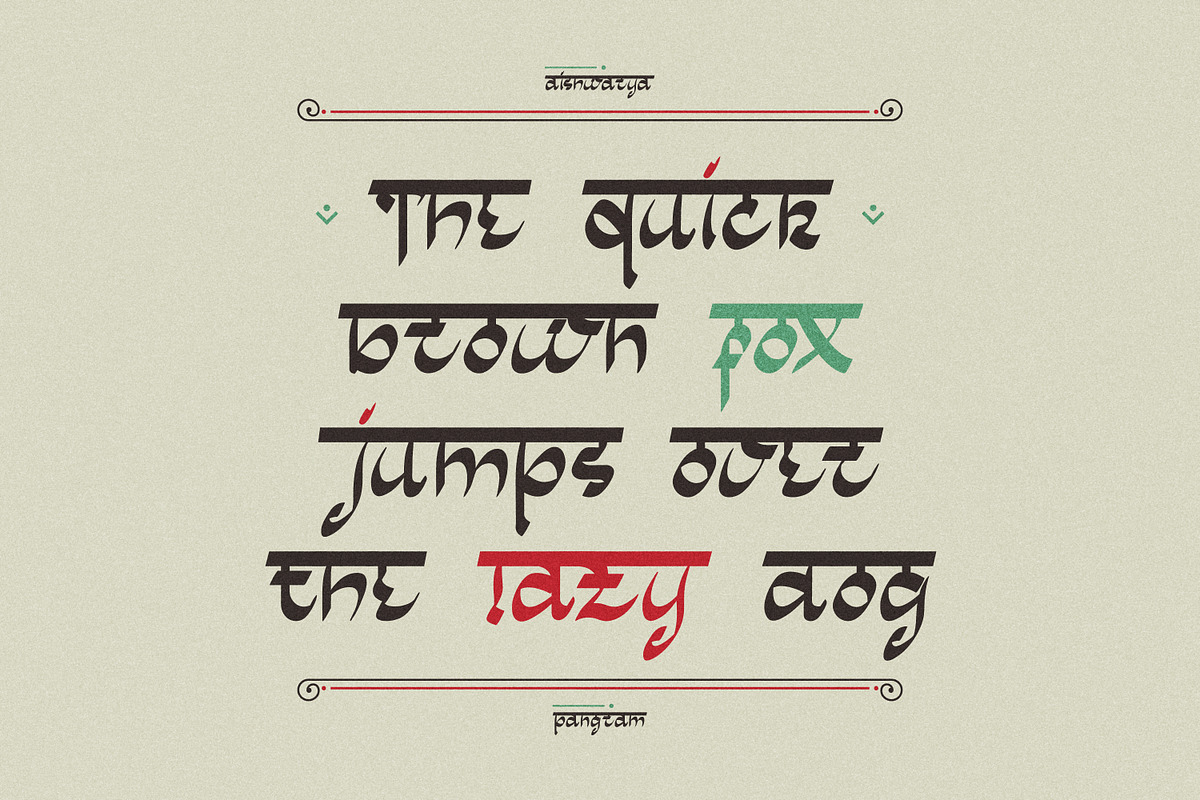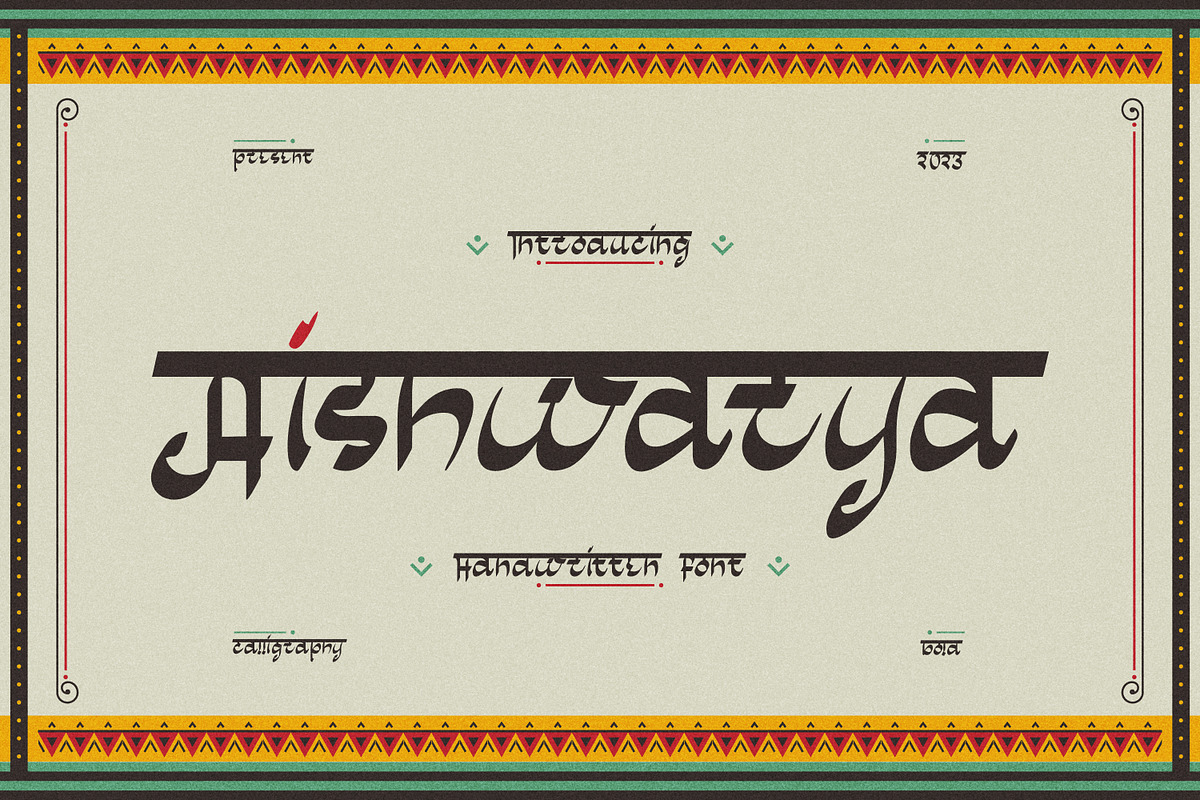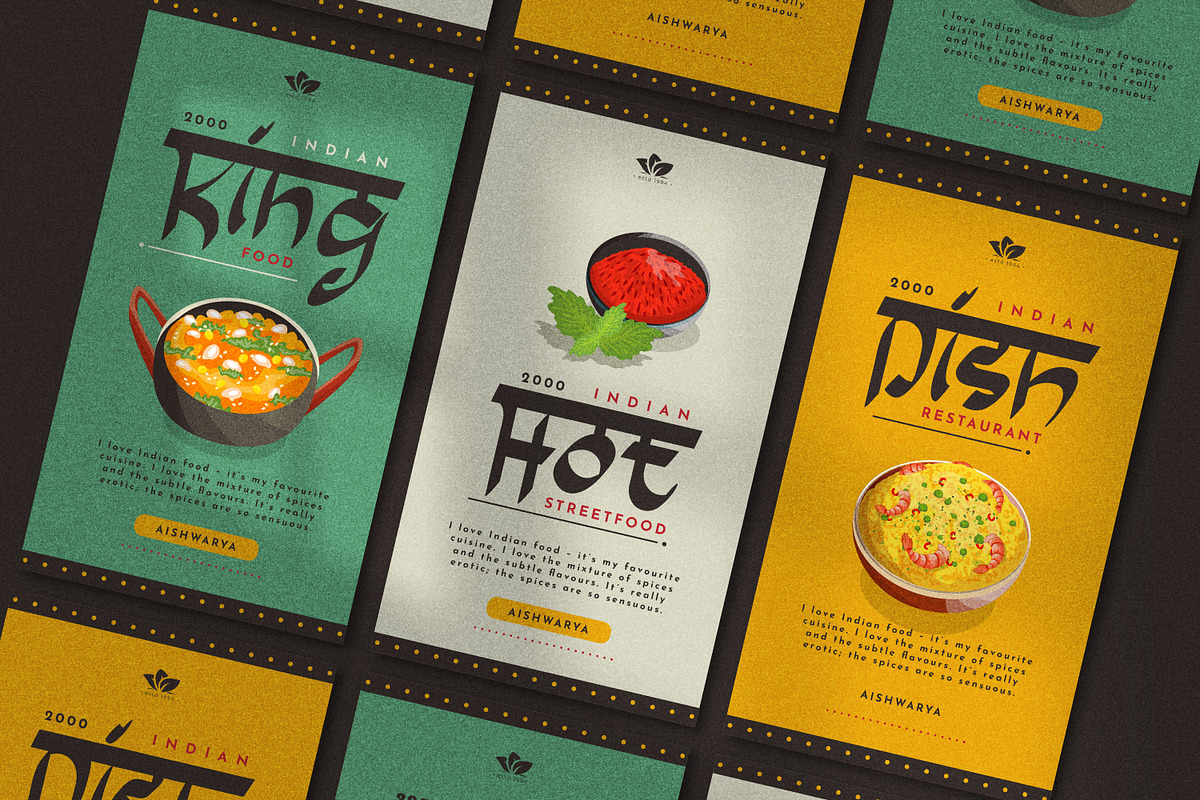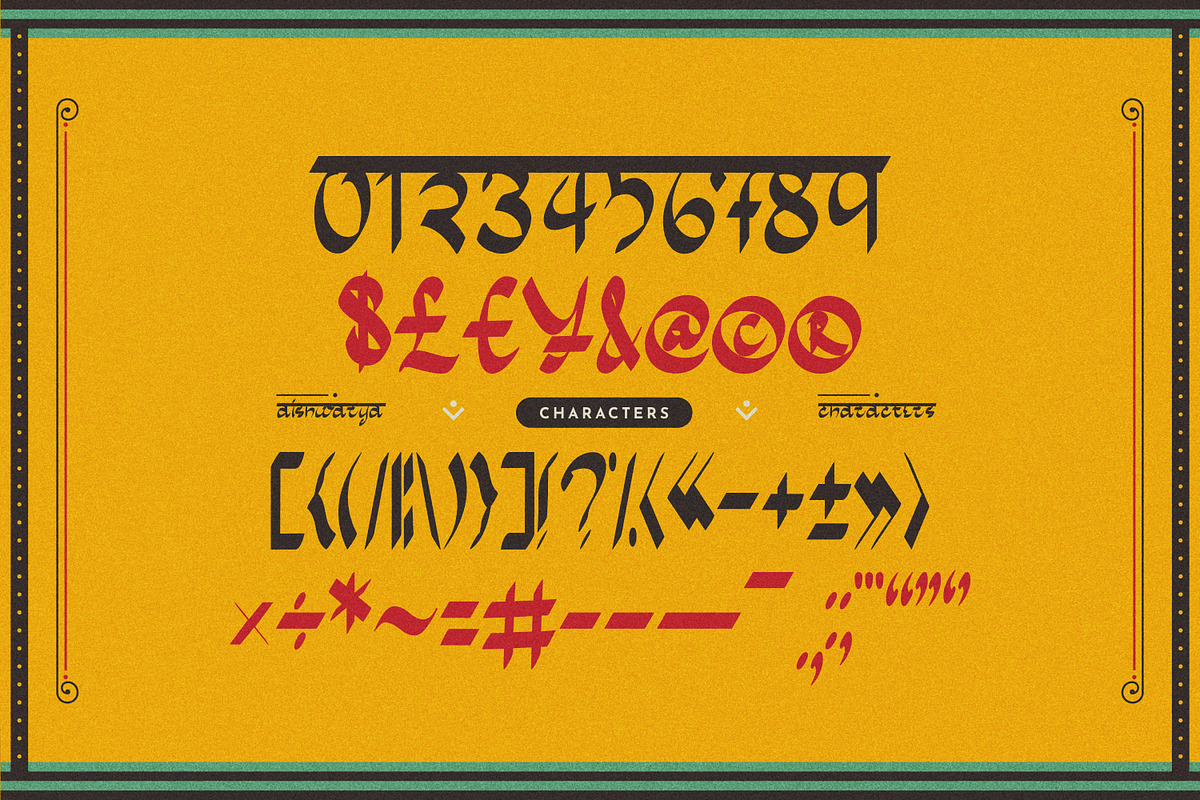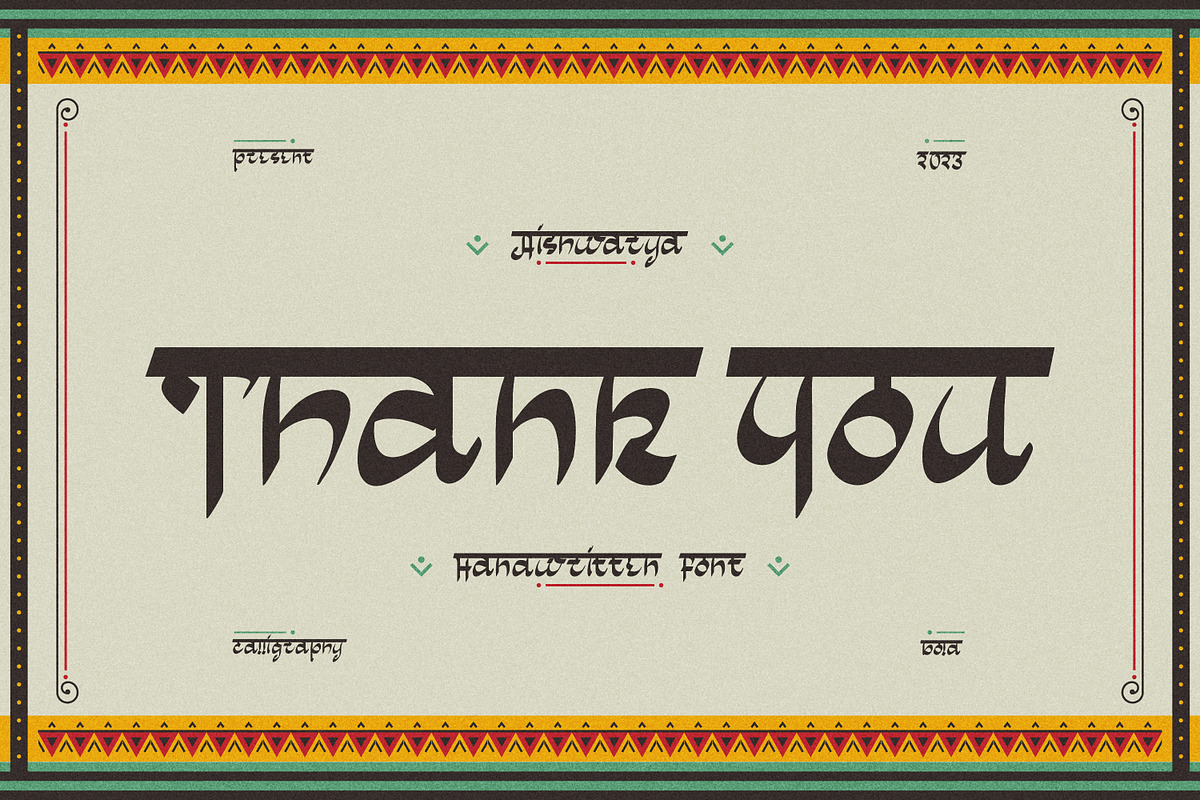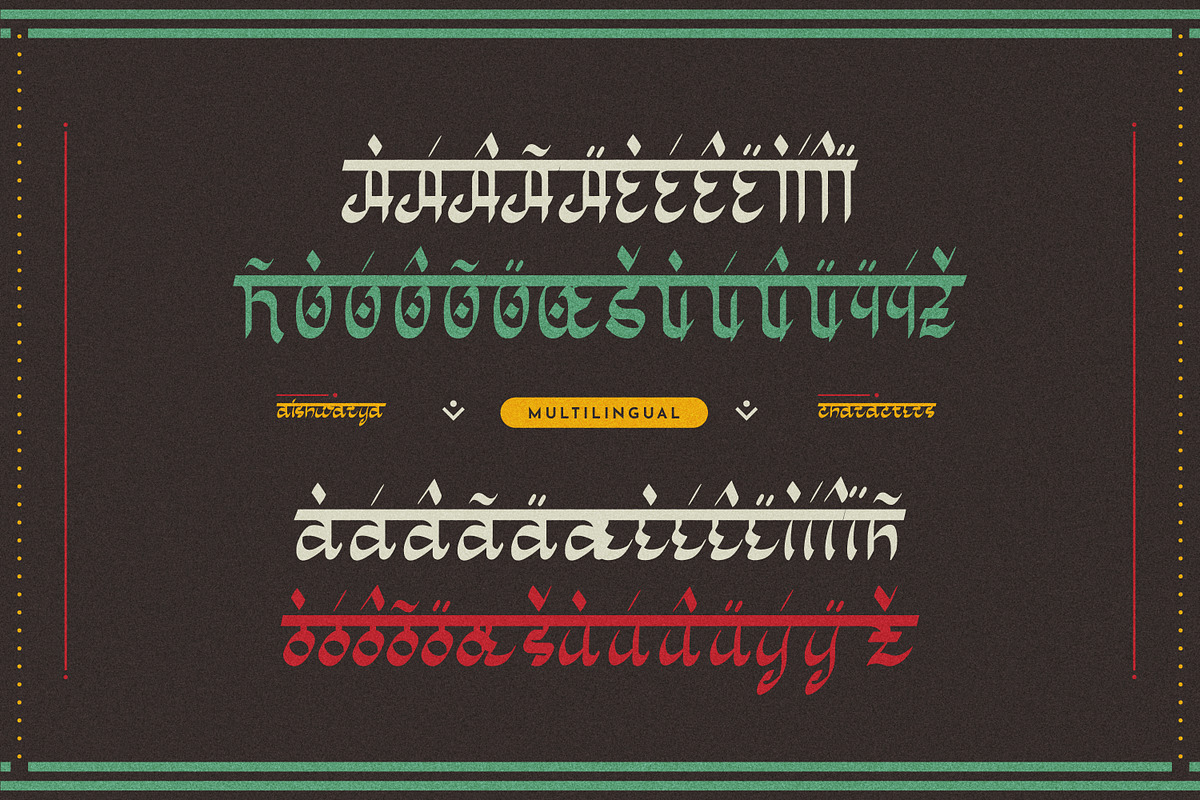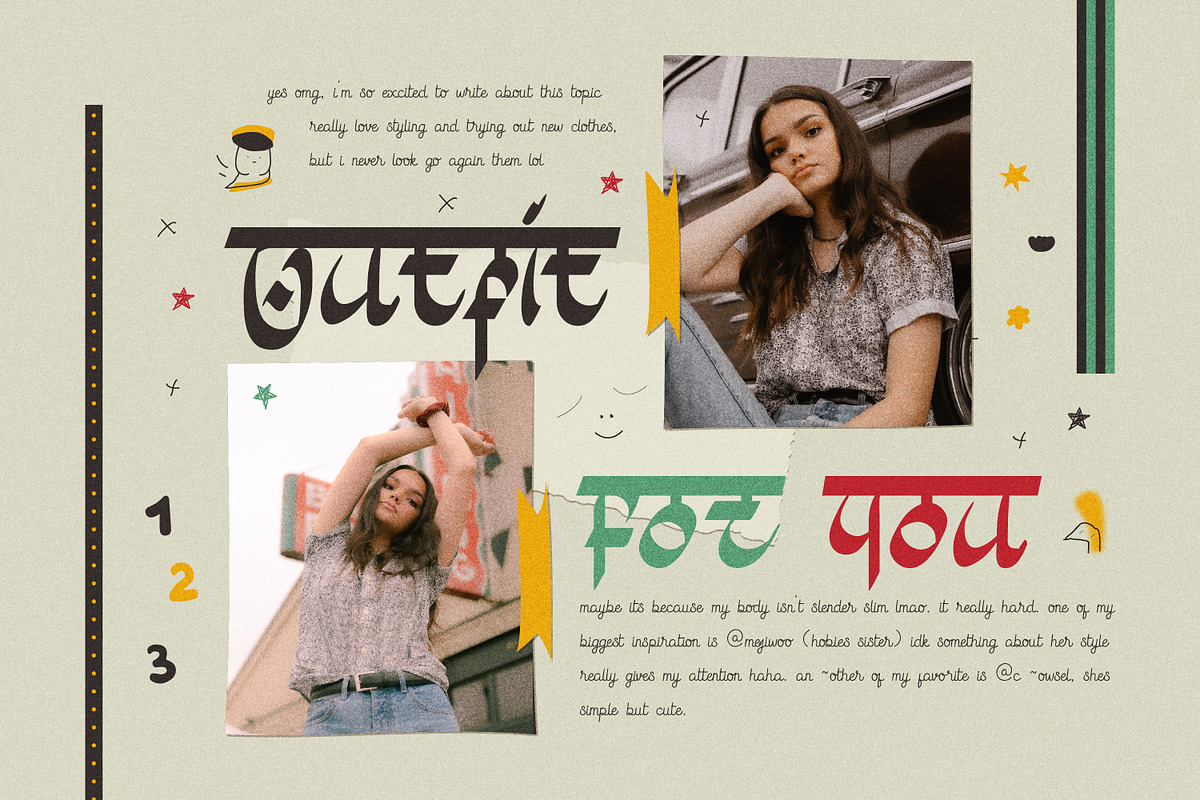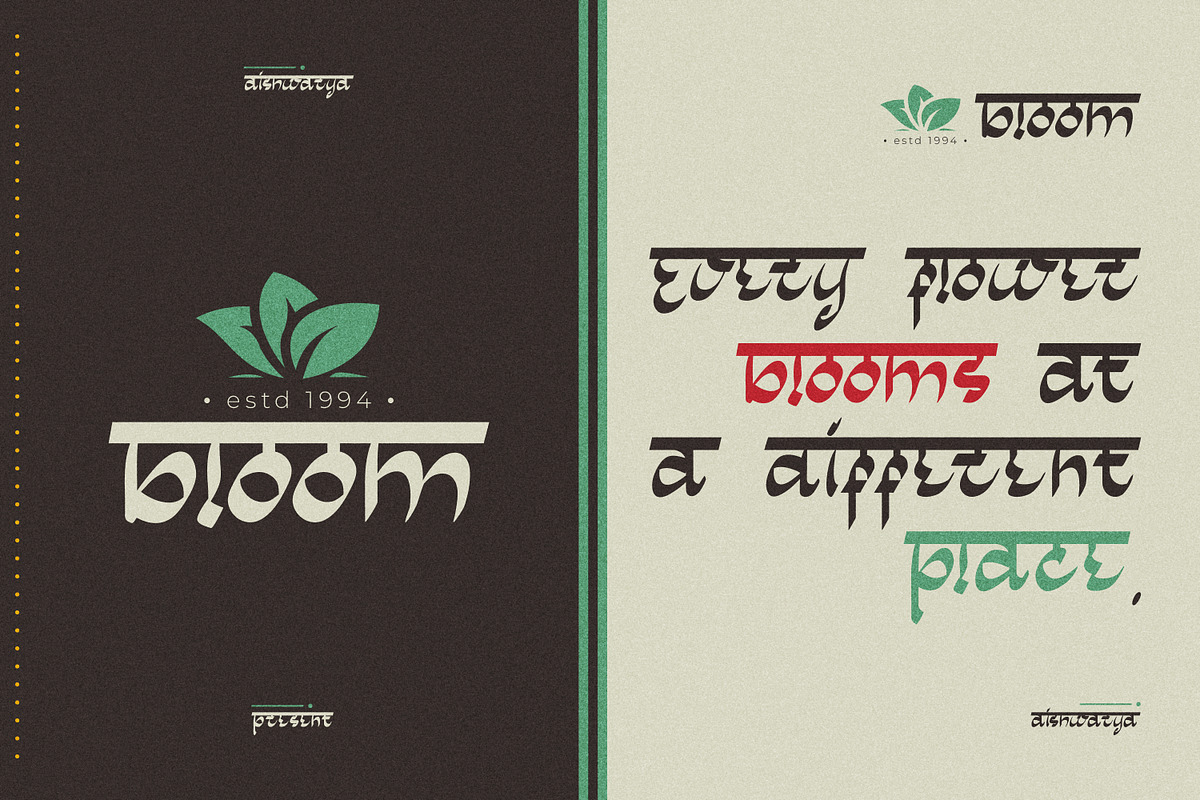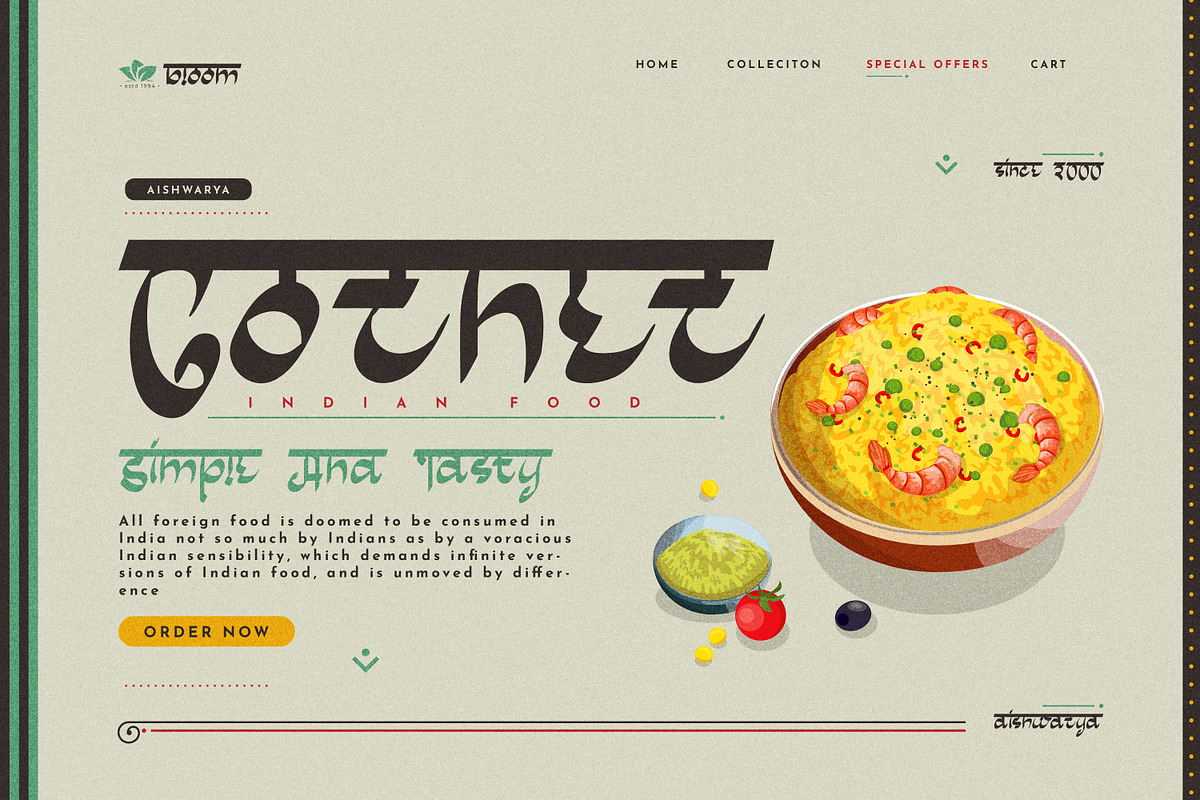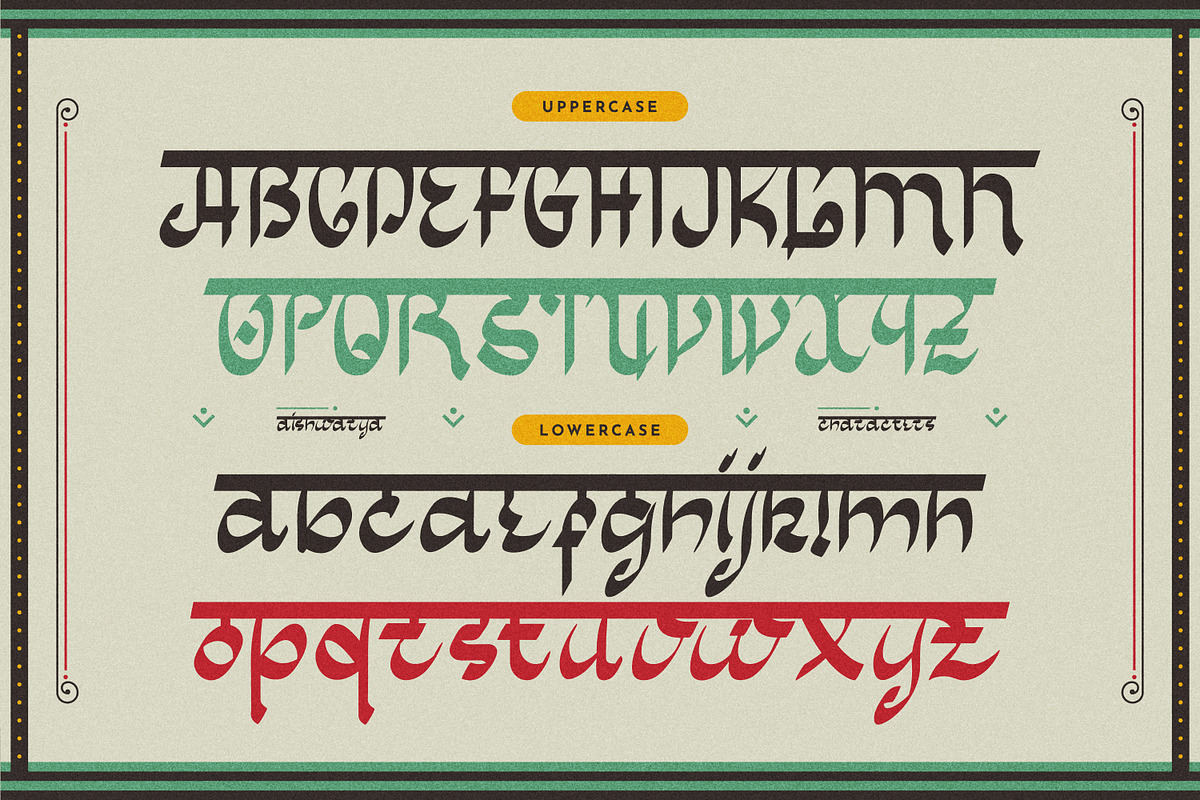
Aishwarya Indian Serif
Aishwarya is a modern and stylish serif font inspired by the Indian writing technique. This font features bold serifs and a unique style that blends traditional Indian design elements with contemporary typography. Use it for ethnic-themed designs, cultural events, and any project that requires a touch of Indian charm and elegance.